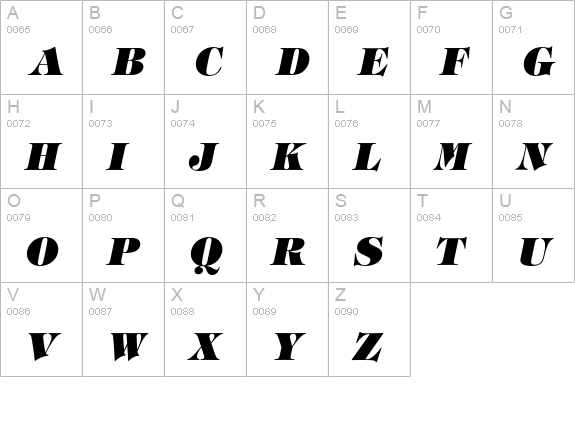
Introducing TiffanyEF-HeavyItalic, a stunning and elegant font that is sure to elevate any design project. With its bold and slanted letterforms, this typeface exudes a sense of sophistication and modernity. TiffanyEF-HeavyItalic is perfect for a wide range of design applications, whether it be creating eye-catching logos, designing stylish branding materials, or crafting striking headlines. Its unique heavy italic style adds a touch of uniqueness and personality to any project, making it stand out from the crowd. What makes TiffanyEF-HeavyItalic even more appealing is that it is freely available to download at FontsMarket.com. This means that you can easily access and utilize this remarkable font in your creative endeavors without any cost. So, whether you are a professional designer or a budding artist, you can enjoy the benefits of TiffanyEF-HeavyItalic without breaking the bank. Designed with meticulous attention to detail, TiffanyEF-HeavyItalic boasts excellent legibility and readability, ensuring that your message is conveyed with utmost clarity. Its smooth and fluid curves, combined with its bold weight, create a visually captivating aesthetic that captures the attention of your audience. With its extensive character set, TiffanyEF-HeavyItalic supports multiple languages and typographic features, allowing you to express your creativity without limitations. Additionally, the font is optimized for both digital and print media, ensuring that your designs always look their best, regardless of the medium. In summary, TiffanyEF-HeavyItalic is a remarkable font that effortlessly blends elegance, modernity, and versatility. Its freely available download at FontsMarket.com makes it a valuable asset for designers and creatives who seek to enhance their projects. Embrace the beauty and functionality of TiffanyEF-HeavyItalic and watch as your designs come to life with a touch of sophistication.